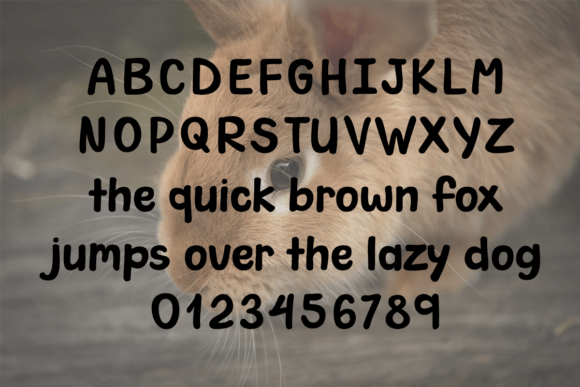
Meet Chonky Bunny Font: The Ultimate Playful Typeface for Easter and Spring Designs
Are you looking for a font that can add a touch of whimsy and fun to your designs? Look no further than Chonky Bunny Font! This bold, playful handwritten typeface is perfect for Easter-themed designs, springtime projects, and anything that needs a dash of personality. In this article, we’ll dive into the world of Chonky Bunny Font and explore its features, uses, and benefits for designers and crafters.
What is Chonky Bunny Font?
Chonky Bunny Font is a unique, handwritten typeface that is characterized by its chunky, rounded letters and whimsical charm. The font’s playful design makes it perfect for creating eye-catching and engaging designs that are sure to stand out. Whether you’re creating greeting cards, product packaging, or social media graphics, Chonky Bunny Font brings a cozy, handmade feel that is sure to delight your audience.
Key Features of Chonky Bunny Font
So, what makes Chonky Bunny Font so special? Here are some of its key features:
• Bold and Playful Design: Chonky Bunny Font features bold, chunky letters that are sure to grab attention.
• Handwritten Style: The font’s handwritten style gives it a cozy, handmade feel that is perfect for creating unique and personalized designs.
• Whimsical Charm: Chonky Bunny Font has a whimsical charm that makes it perfect for Easter-themed designs, springtime projects, and other fun and playful applications.
• Rounded Letters: The font’s rounded letters give it a soft and friendly feel that is sure to appeal to your audience.
Uses for Chonky Bunny Font
Chonky Bunny Font is a versatile typeface that can be used in a variety of design projects. Here are some ideas to get you started:
• Easter-themed Designs: Chonky Bunny Font is perfect for creating Easter-themed designs, such as Easter egg designs, bunny-themed graphics, and springtime posters.
• Springtime Projects: The font’s playful design makes it perfect for springtime projects, such as garden-themed designs, floral patterns, and outdoor-inspired graphics.
• Greeting Cards: Chonky Bunny Font is a great choice for creating greeting cards, such as Easter cards, birthday cards, and thank-you cards.
• Product Packaging: The font’s bold and playful design makes it perfect for product packaging, such as labels, tags, and packaging inserts.
• Social Media Graphics: Chonky Bunny Font can be used to create eye-catching social media graphics, such as Facebook posts, Instagram graphics, and Twitter headers.
Benefits of Using Chonky Bunny Font
So, why should you use Chonky Bunny Font in your designs? Here are some benefits:
• Unique and Playful Design: Chonky Bunny Font’s unique and playful design makes it perfect for creating designs that stand out from the crowd.
• Easy to Read: The font’s bold and chunky letters make it easy to read, even at small sizes.
• Versatile: Chonky Bunny Font can be used in a variety of design projects, from Easter-themed designs to social media graphics.
• Handmade Feel: The font’s handwritten style gives it a cozy, handmade feel that is sure to delight your audience.
Tips for Using Chonky Bunny Font
Here are some tips for using Chonky Bunny Font in your designs:
• Use it with Bright Colors: Chonky Bunny Font looks great with bright, bold colors that match its playful design.
• Experiment with Different Sizes: The font’s bold design makes it perfect for use at a variety of sizes, from large headlines to smaller body text.
• Pair it with Other Fonts: Chonky Bunny Font can be paired with other fonts to create a unique and interesting design.
• Use it to Add Personality: Chonky Bunny Font is perfect for adding personality and whimsy to your designs.
Font Name Chonky Bunny Font
Chonky Bunny Font is a bold, playful handwritten typeface that is perfect for Easter-themed designs, springtime projects, and anything that needs a touch of fun. With its chunky, rounded letters and whimsical charm, this font is sure to delight your audience and add a cozy, handmade feel to your designs. Whether you’re a designer or crafter, Chonky Bunny Font is a great choice for creating unique and engaging designs that stand out from the crowd.